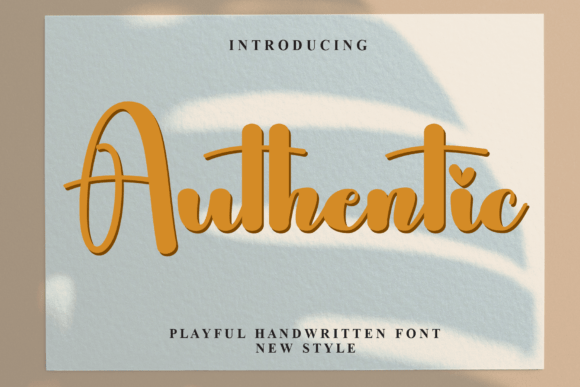
The Quest for the Perfect Font: How Authentic Font Changed the Game
I’ll never forget the frustration of working on a design project, hours pouring into every detail, only to be held back by the lack of the perfect font. It was like trying to build a masterpiece with a limited palette. My client wanted something elegant and modern for their wedding invitation suite, but nothing seemed quite right. That was until I stumbled upon Authentic Font.
Authentic Font has been a game-changer for my design workflow. With its unique style and versatility, it’s become a go-to for various projects. In this article, I’ll share my experience with Authentic Font, its features, and how to make the most of it across different platforms.
What Makes Authentic Font Special?
Authentic Font offers a range of creative possibilities. Here are some of the key features that make it stand out:
• ✨ Latest style letters perfect for wall displays, wedding invitations, social media post logos, advertisements, product packaging, and more
• ✨ The unique and stylish letterforms that add a touch of elegance to any project
• ⚠️ Some users might find the font too stylized for certain projects, such as corporate branding
• 🤔 Limited availability of certain characters or glyphs, although the encoded PUA character helps mitigate this
3. Explore the OpenType features, glyphs, and stylistic alternates to add depth and variety to your design
The Story Behind Authentic Font
Authentic Font was created with the goal of providing a unique and stylish font for designers, crafters, and creative hobbyists. The designer behind Authentic Font drew inspiration from classic typography and modern design trends to create a font that’s both elegant and versatile.
Q: Is Authentic Font suitable for body text?
A: While Authentic Font is a beautiful font, it’s best suited for headlines, titles, and short paragraphs. For body text, a more traditional font might be more readable.